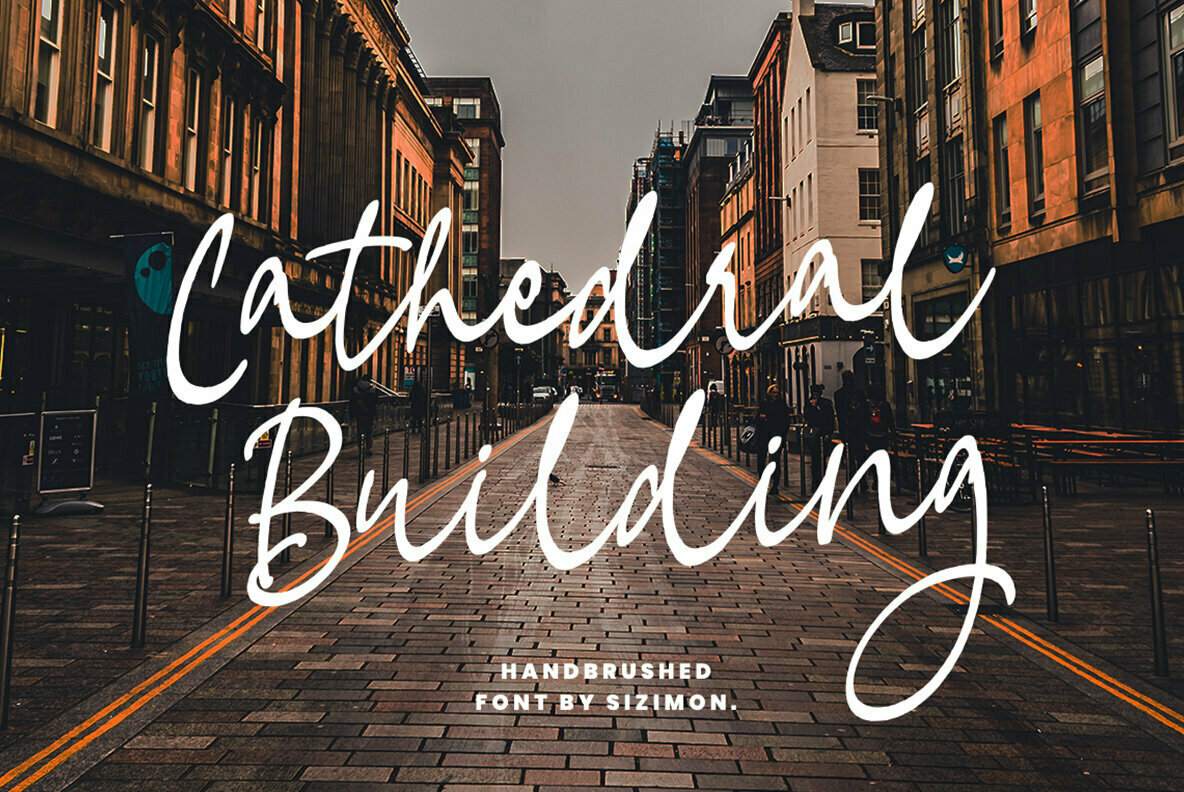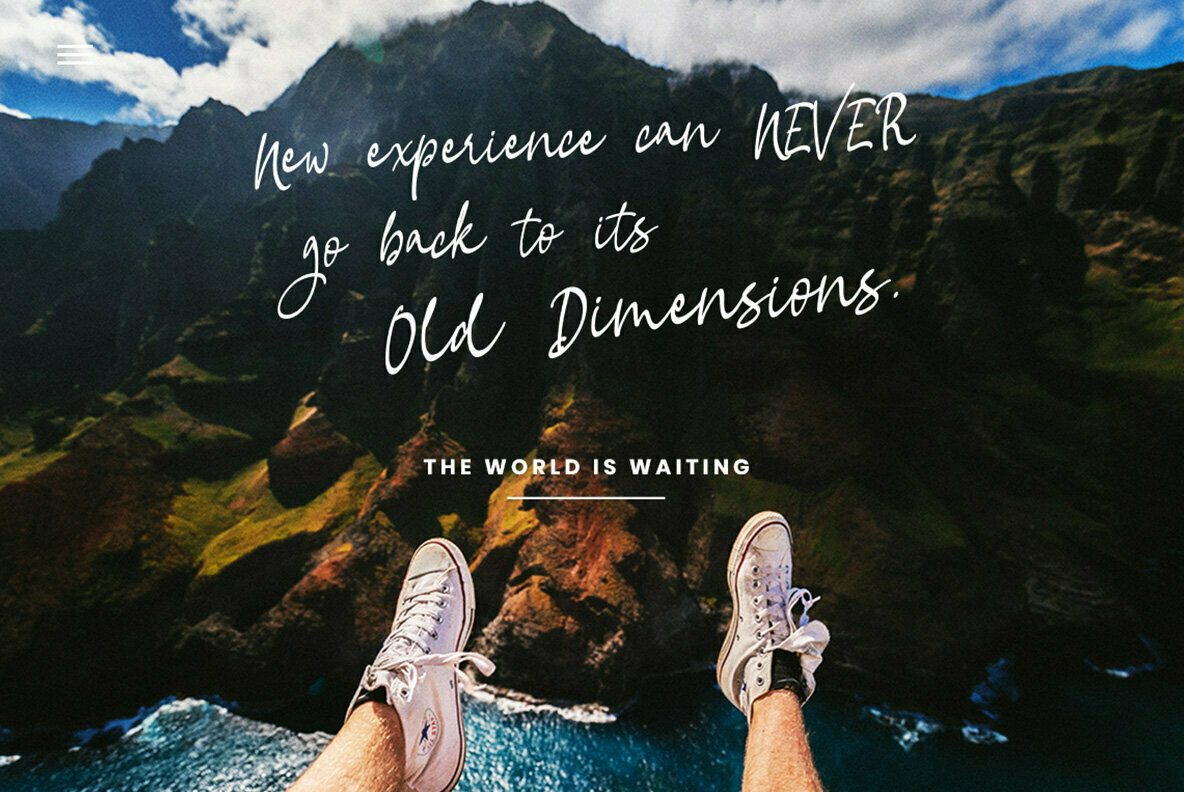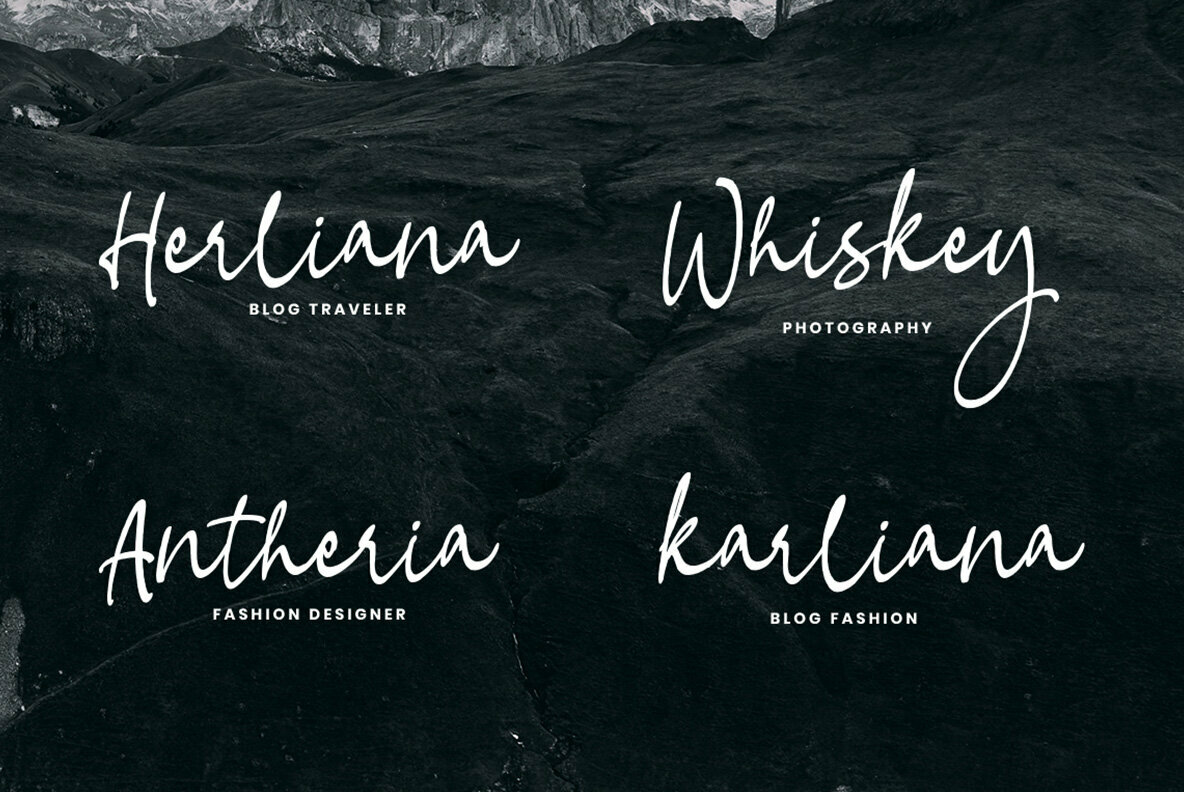
Fasha Script Font
Fasha Script
Fasha Script presents a versatile option for graphic designers seeking a typeface bursting with character and vibrancy. Its natural flow and spirited design make it a fitting choice for a range of applications, from branding and logo design to clothing and poster creation. This script font offers a fluid and charming aesthetic that can enhance the visual impact of your work.Fasha Script: A Lively Typeface for Dynamic Design
Fasha Script's harmonious flow and lively attributes bring a touch of spontaneity and creativity to any project. Perfect for those looking to infuse their designs with verve and distinctiveness.